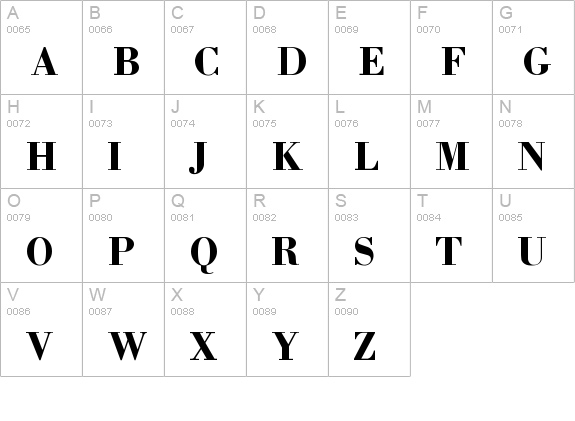
The Boston Fed font is a stylish and versatile typeface that exudes a sense of sophistication and elegance. Its sleek lines and modern aesthetic make it perfect for a wide range of design projects, from branding and marketing materials to digital content and print media. This versatile font is ideal for creating eye-catching headlines, titles, and text that demand attention. What makes the Boston Fed font even more appealing is that it is available for free download at FontsMarket.com. This means that you can add this stunning typeface to your font library without any cost, making it a valuable asset for any designer or creative professional. With its clean and contemporary design, the Boston Fed font is sure to elevate your projects and help you stand out from the crowd.